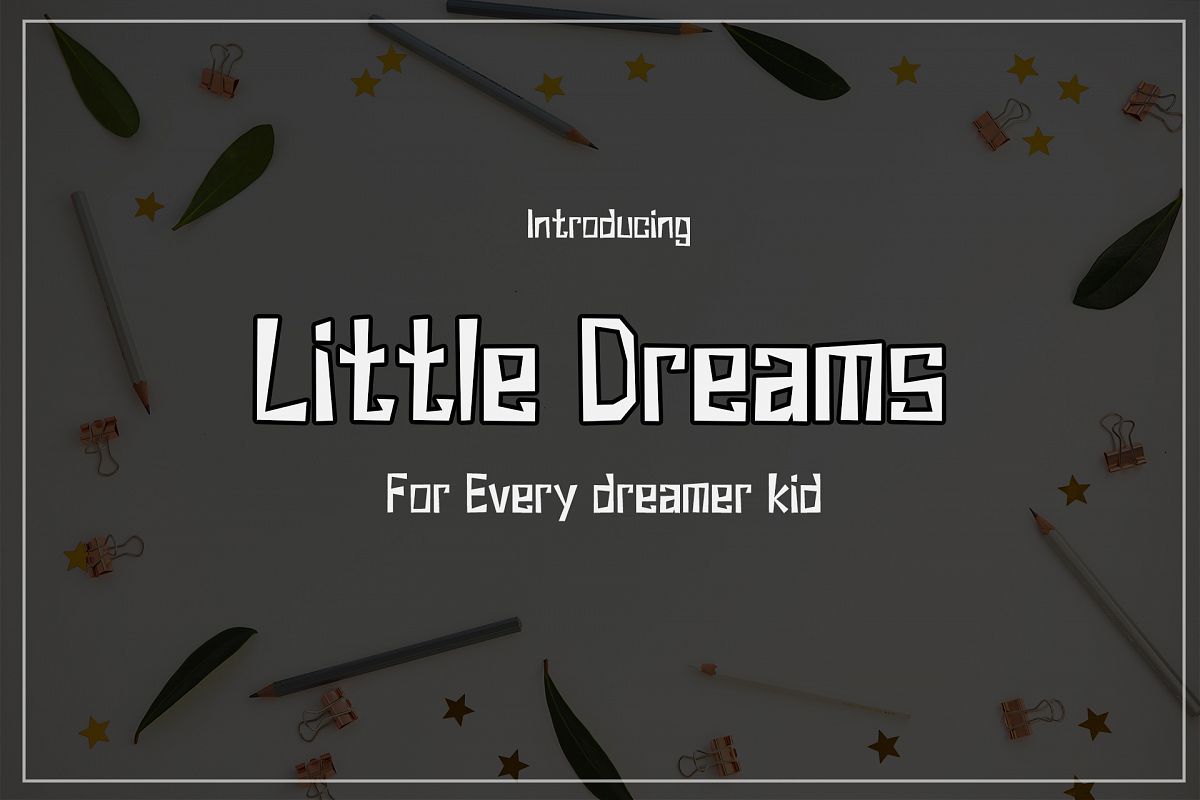
Little Dreams
Little Dreams font is such a great font to use for your artwork including kids staff this font is best way to export our artwork to the public
I hope You will get fun with this font, feel this font in comfort, flexible.